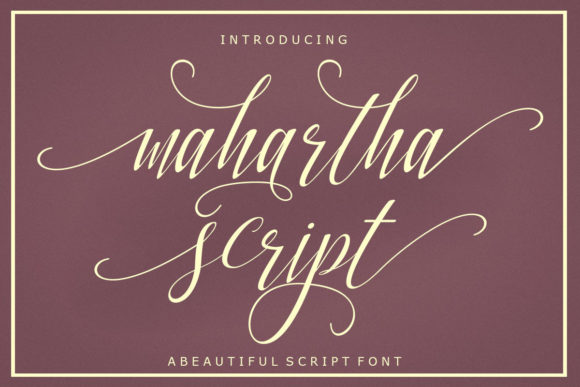
Welcome to the mesmerizing world of Mahartha Script, where timeless elegance meets modern charm!
Indulge in the enchanting allure of this exquisite script font, meticulously crafted by Shape Studio. Inspired by the enduring beauty of classic calligraphy, Mahartha Script exudes an air of sophistication and grace. With its contemporary sensibility, it adds a fresh and captivating touch to any design.
Prepare to be captivated by the intricate details, graceful curves, and impeccable form that define Mahartha Script. Each letter is a masterpiece, flowing seamlessly into the next, creating a symphony of visual delight.
Unleash your creativity and let Mahartha Script elevate your designs to new heights. Its versatility knows no bounds, making it the perfect choice for a wide range of projects. From elegant invitations and heartfelt love letters to captivating social media posts and eye-catching branding materials, Mahartha Script adds a touch of understated luxury to every creation.
With its PUA encoding, accessing the full spectrum of glyphs and swashes is a breeze. Unleash your imagination and explore endless possibilities to customize and enhance your designs.
Embark on a typographic journey and discover the beauty of Mahartha Script. Its timeless appeal and modern elegance will transform your words into works of art, leaving a lasting impression that will be cherished for years to come.